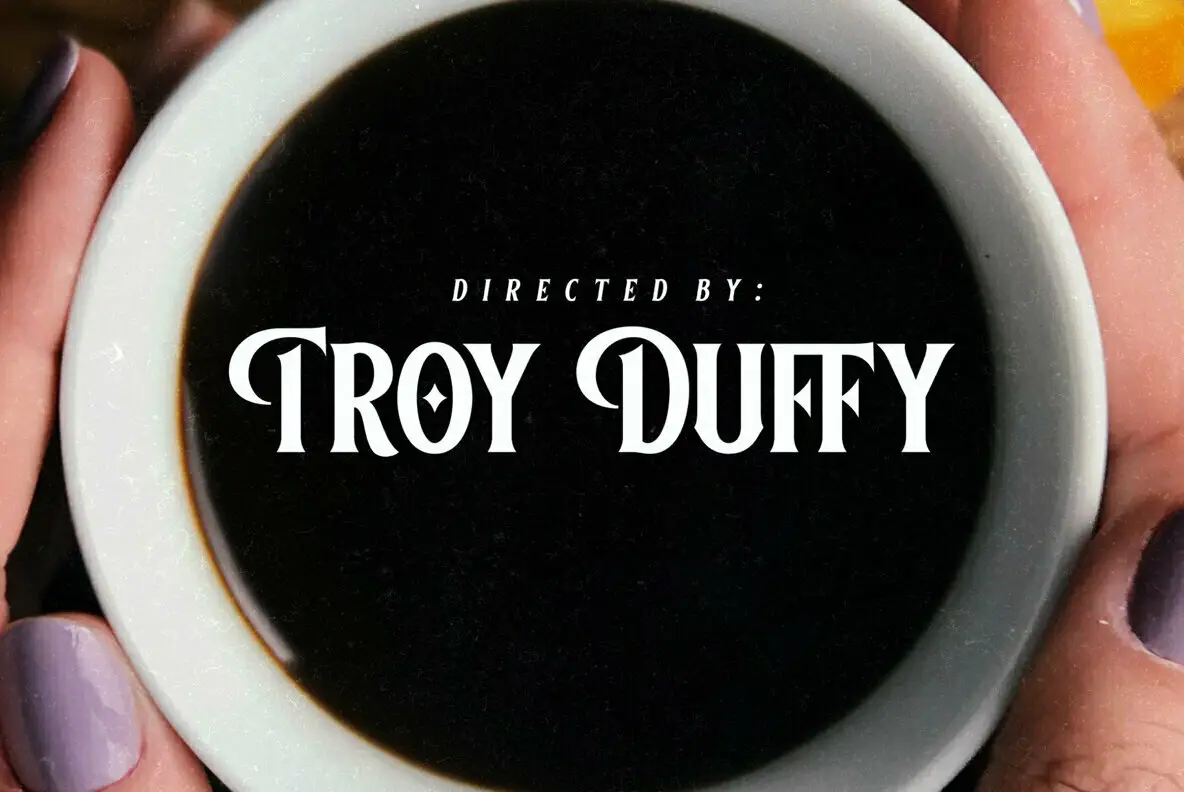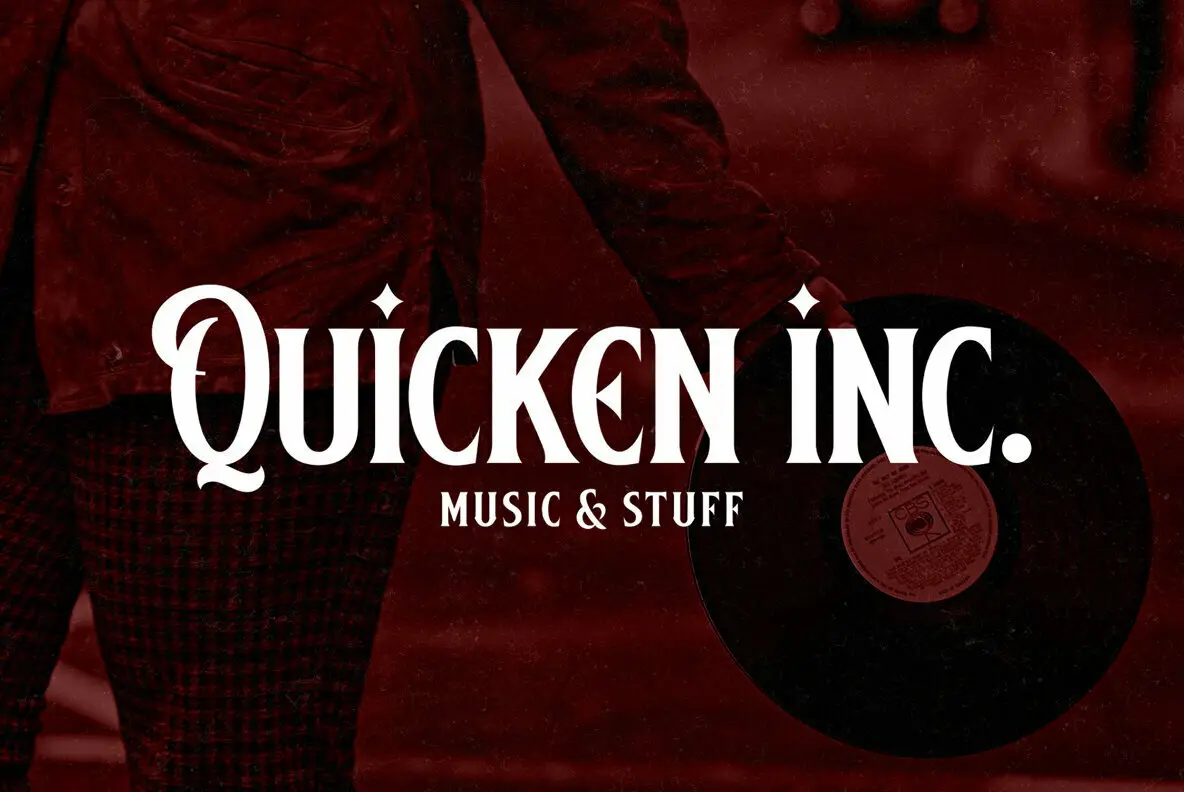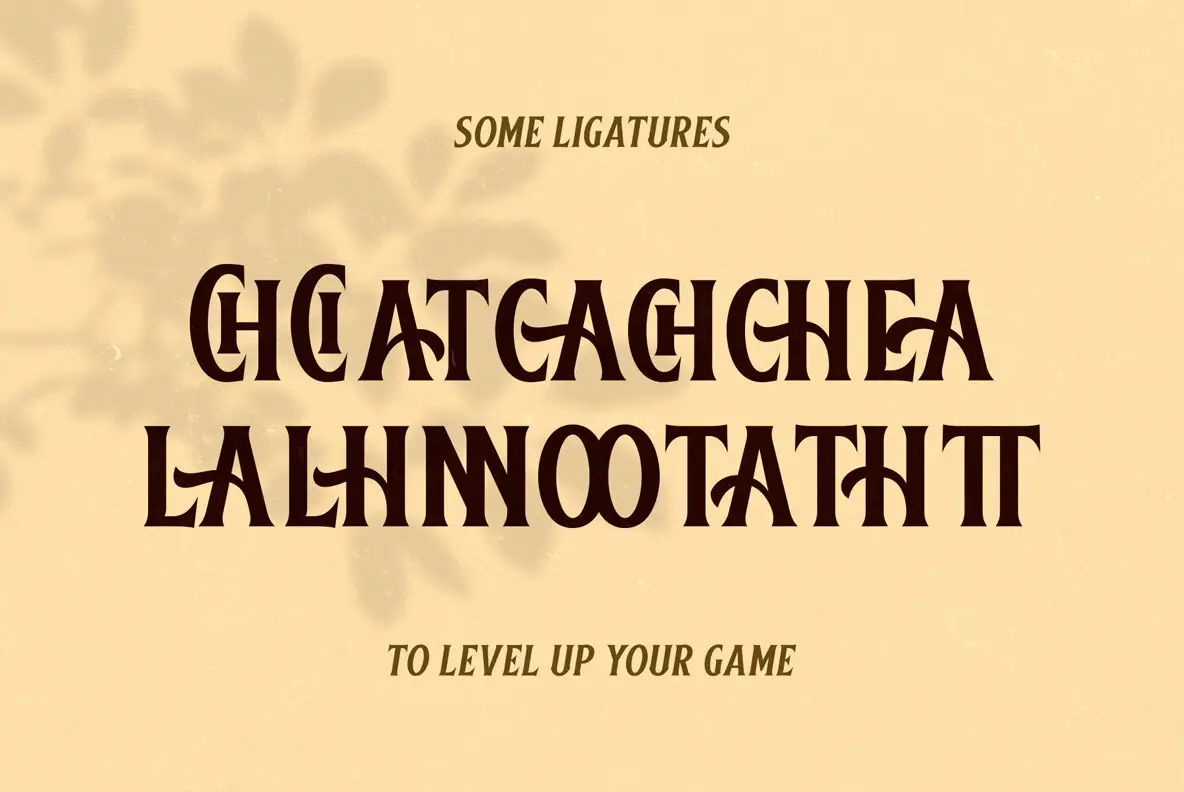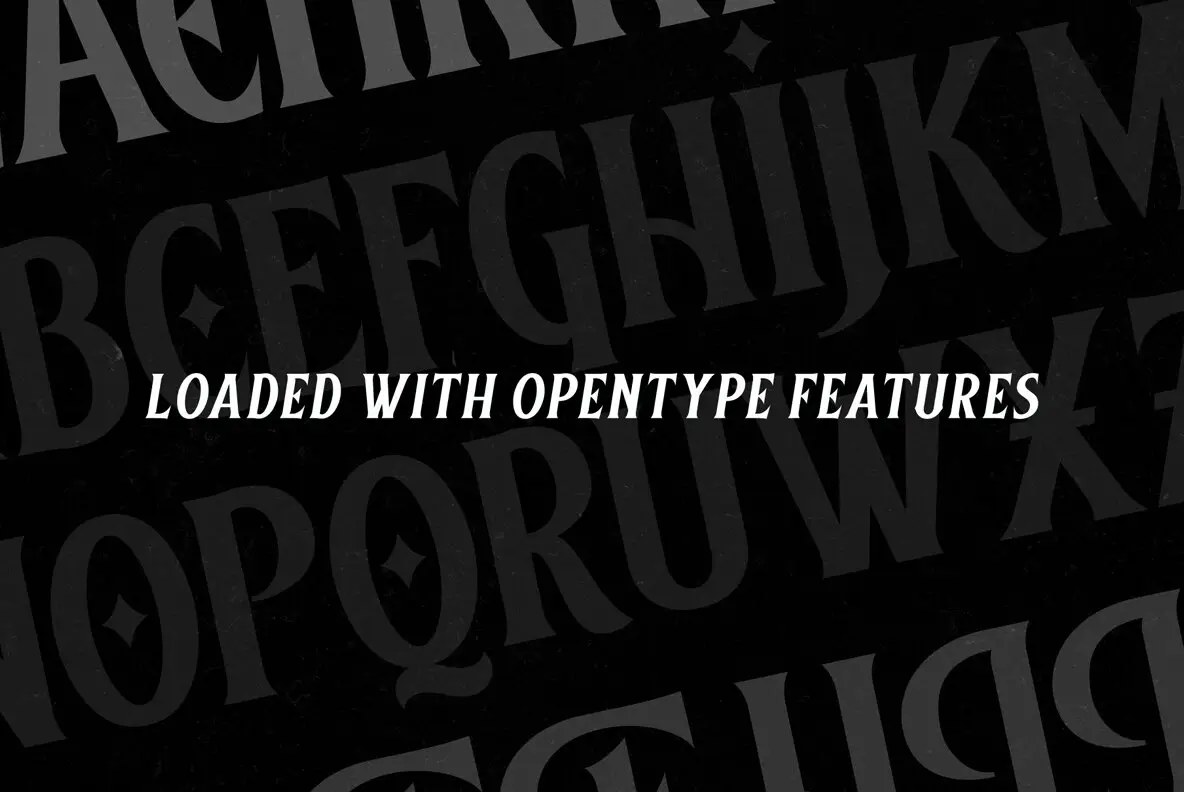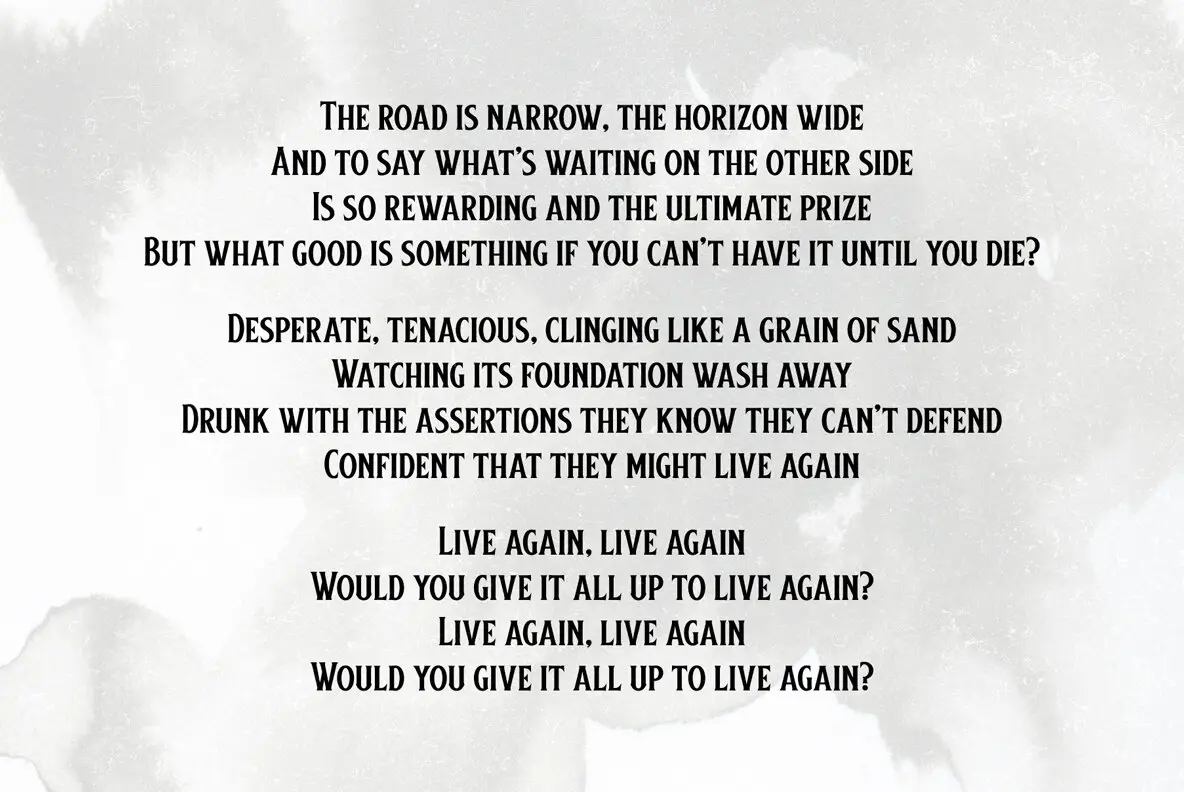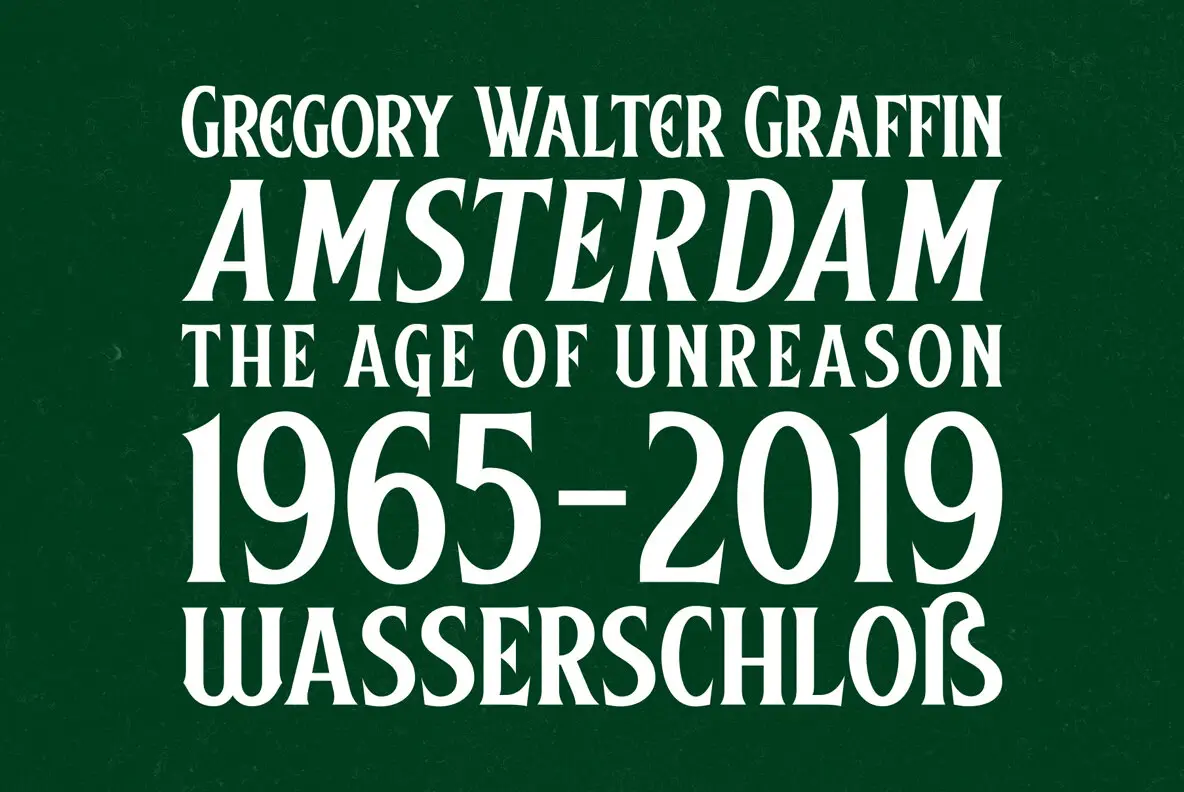
Baisteach font Baisteach Regular Font Free Download This is a geometric original font is created according to current. Download baisteach font from free cdn or use it on your website as webfont. Free added feb 10 2023. Be aware that the baisteach font is free for personal knowledge and use only. Font meme is a fonts & typography resource. The “fonts in use” section features posts about. Baisteach Regular Font Free Download.
Baisteach Fonts Shmonts Baisteach Regular Font Free Download Say hello to the baisteach font! Be aware that the baisteach font is free for personal knowledge and use only. Free added feb 10 2023. So whether you're working on a personal project or creating. This font is a demo version, which only contain standard characters. However, you need to contact the author for. Baisteach font family free download. 12. Baisteach Regular Font Free Download.
Baisteach font free download • Baisteach Regular Font Free Download The best part is that you can download baisteach font with one click completely free! 12 ( fonts by twicolabs fontdation. Free fonts / regular / baisteach. This font is a demo version, which only contain standard characters. The “fonts in use” section features posts about fonts used in logos, films, tv shows, video games, books and more; This is. Baisteach Regular Font Free Download.